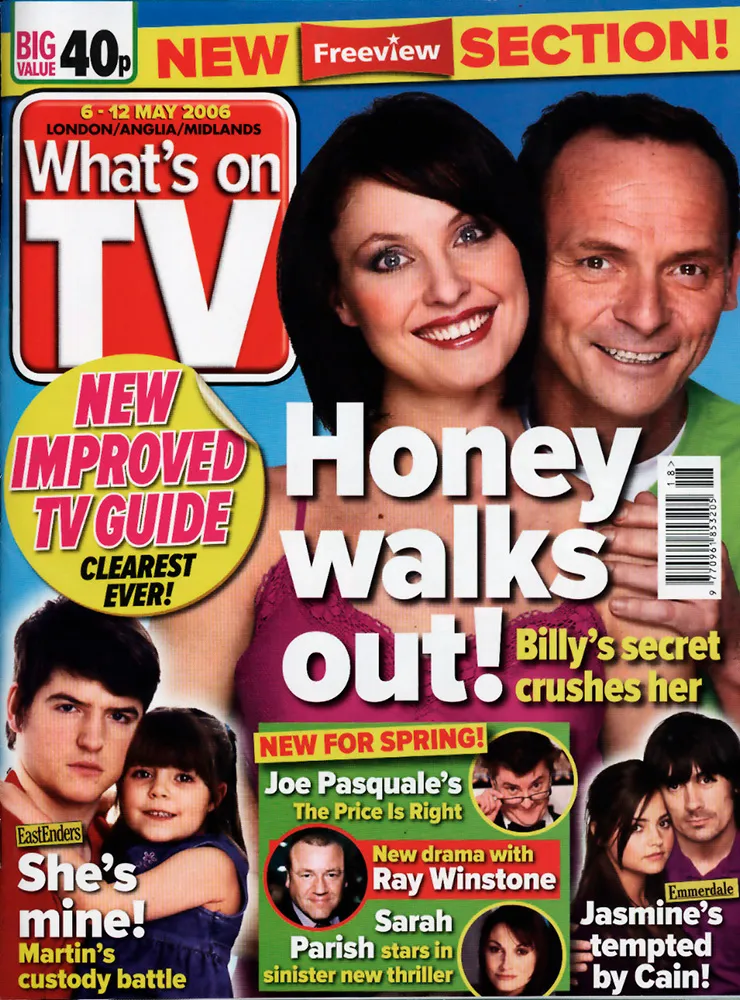
Yesterday afternoon I went to a packed rock concert with my daughter at the new Minneapolis Public Library. You read that right: a rock concert in a library. The band was Harry and the Potters who, if you have never heard of them, pretend to be Harry Potter (two of them) and play songs inspired by characters and situations in the famous books. (That’s “Bill Weasley” on drums.) The warm up act was Draco and the Malfoys (what else?), who advised the audience that there was no point in staying once they finished. Both bands were very fun, very loud, and very punk rock. Fans do amazing things sometimes.
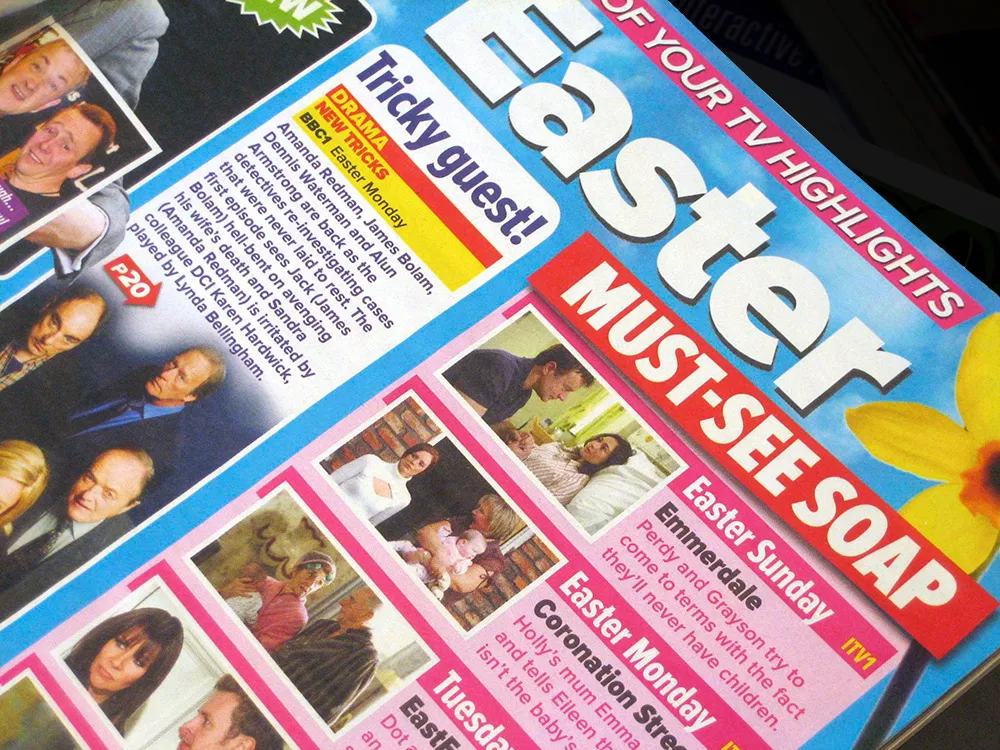
The 42 members of the Proxima Nova family get a real workout in What’s On TV, the best-selling magazine in the UK. Virtually all the type in the magazine is set in Proxima Nova, from the headlines on the cover to the tiny, densely-packed text in the radio and TV listings section. It’s all part of a recent redesign of the magazine, and, according to one of the designers, the reaction from readers has been positive. The magazine also requested a new weight—halfway between Regular and Semibold—which I may release to the public at some point.
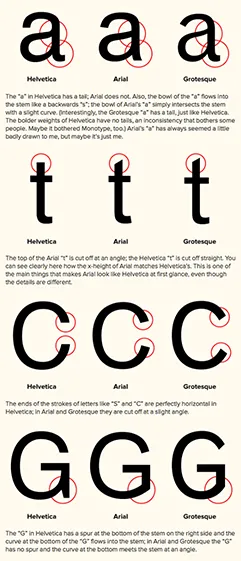
Reader Egemen Sentin wrote to point out an odd coincidence he noticed on the “How to Spot Arial” page: “The first four characters (a, t, c and g) that you chose for distinguishing between fonts Arial, Helvetica and Grotesque are also the first letters of the four bases of DNA, adenine, thymine, cytosine and guanine – proof that fonts have genes!”
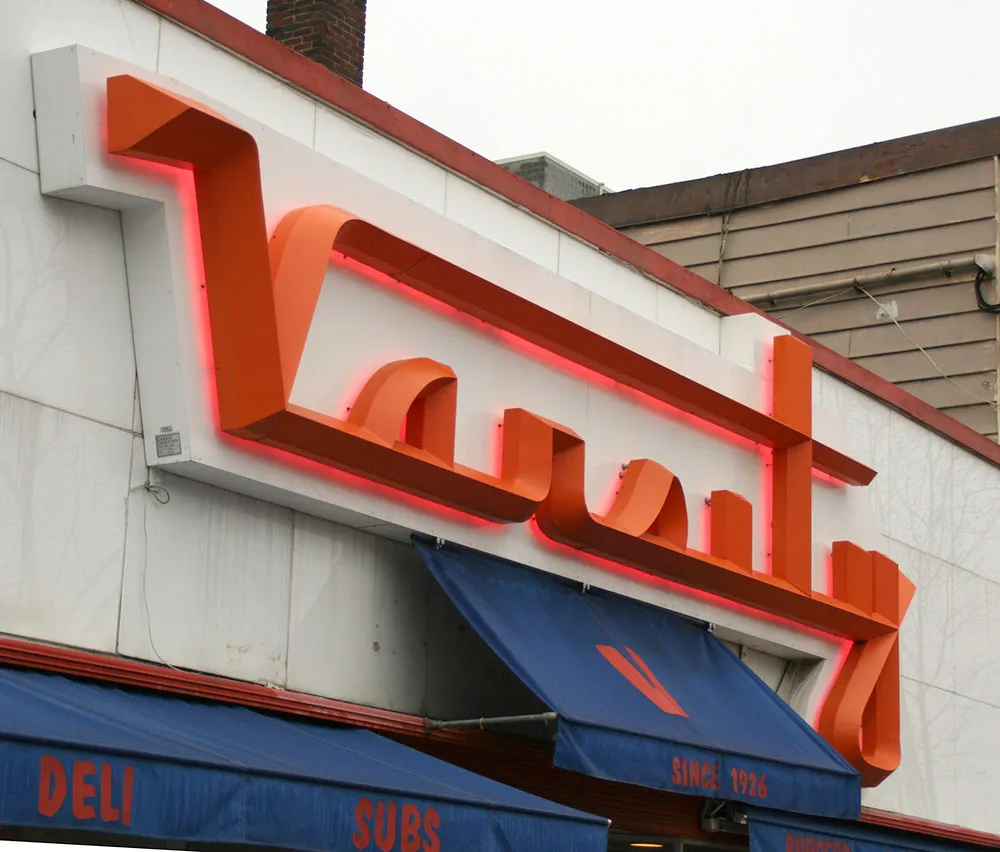
Last week I was in upstate New York and discovered this beautiful Art Deco sign on the Syracuse University campus. Photo taken April 7, 2006, in Syracuse, New York.
Just for fun, I’ve decided to share my first published writing on the subject of typography. It appeared in the April 19, 1977, issue of Metropolis, the Weekly Newspaper of Minneapolis. Metropolis unfortunately folded about six months later, but it was an incredible place to work. I may write more about it sometime.
As its production manager, I didn’t get much chance to write, but this was one exception. After four months there, I had a reputation as someone who knew something about type. Metropolis had a page in the back called “Final Draft.” It was a page where anything might appear, from short stories to comics to photo essays. I can’t remember anymore if the editor, Scott Kaufer, asked me to write something or if I suggested it myself. Some of it makes me cringe to read again. Some of it is not quite correct. There are things in it that I wouldn’t necessarily agree with anymore, and I am surprised at how jaded I sound. Keep in mind, though, that I was only 21 years old when I wrote it, and, as everyone knows, a 21-year-old knows all there is to know.
(Originally published in Metropolis, the Weekly Newspaper of Minneapolis, April 19, 1977.)